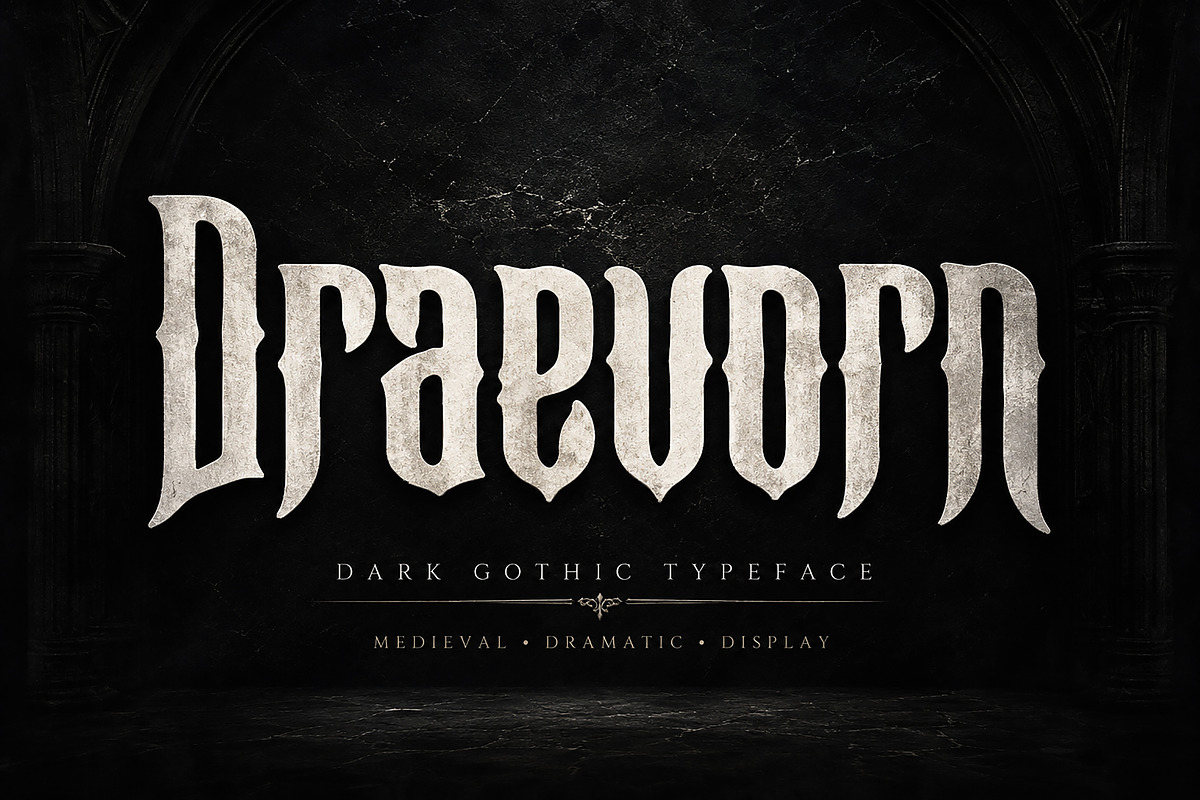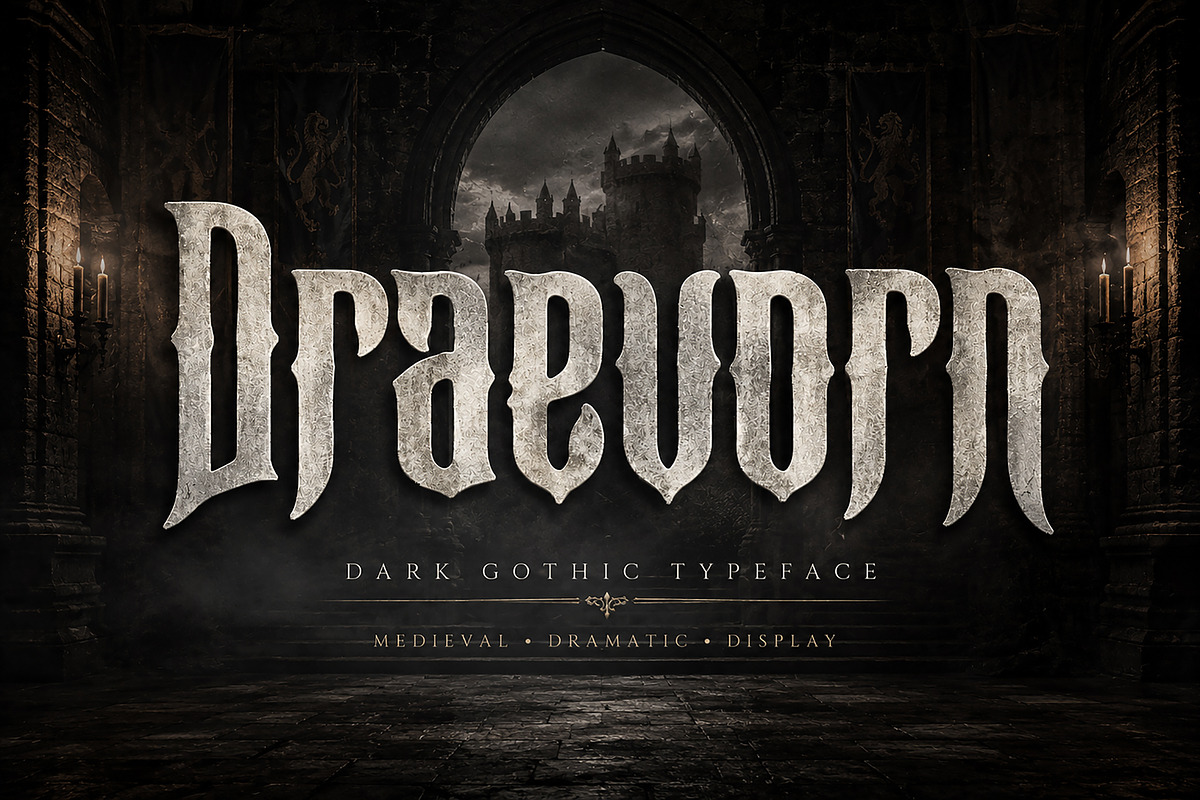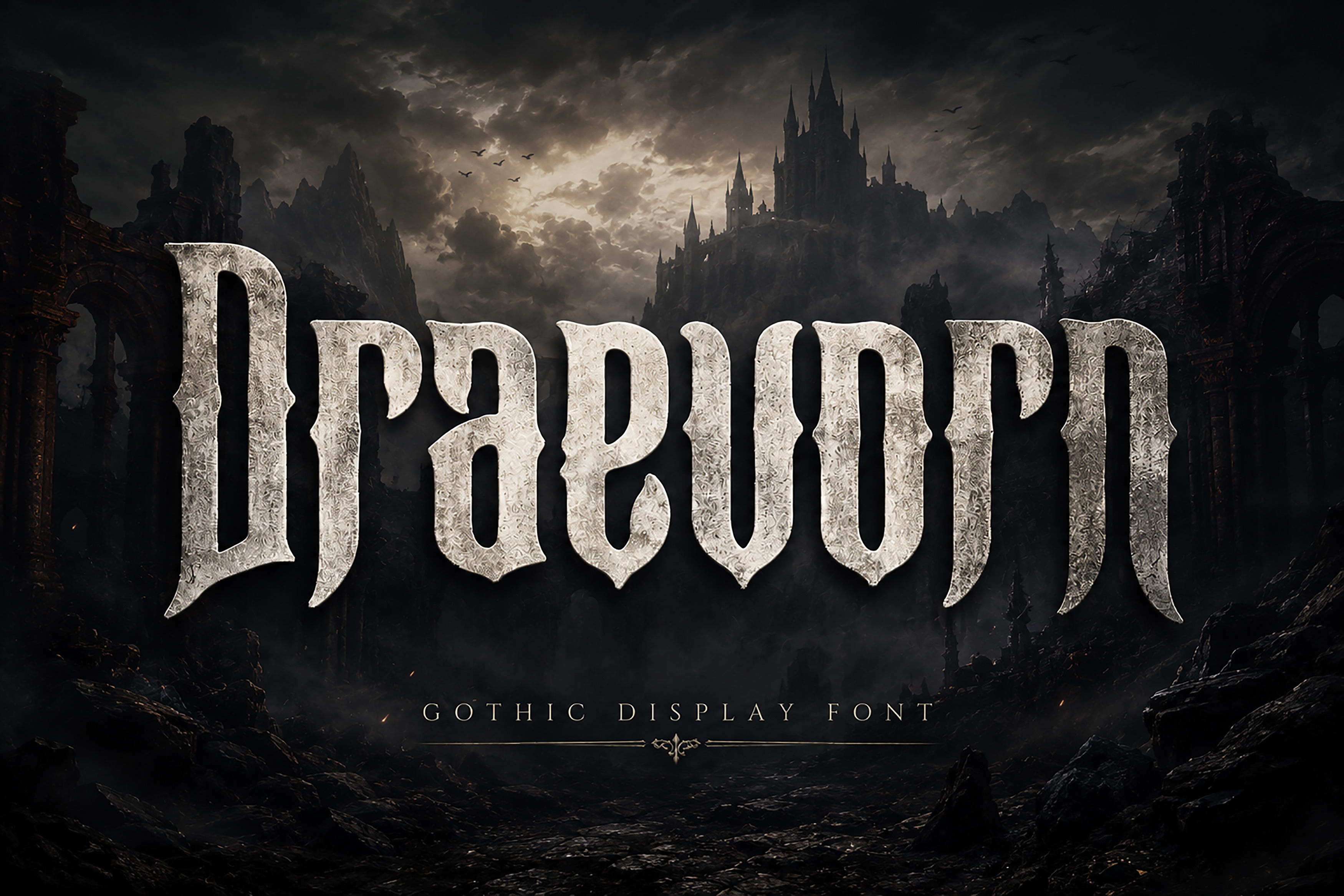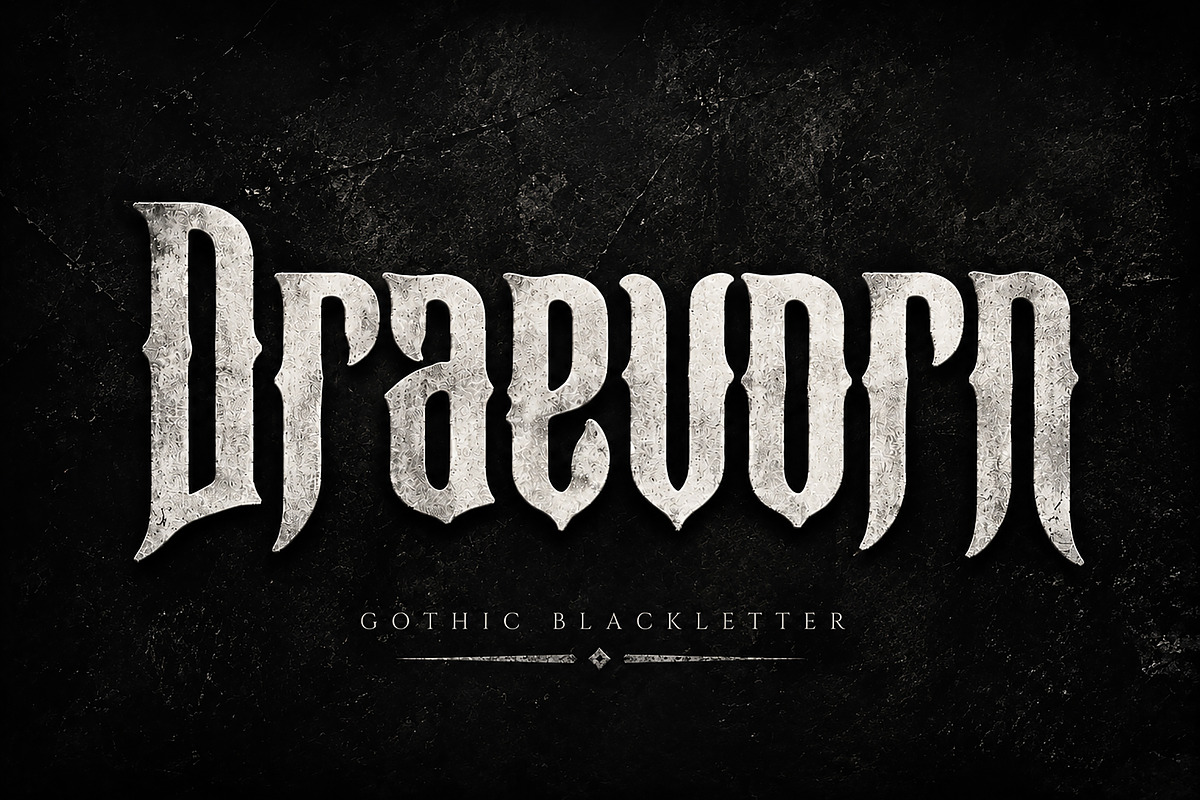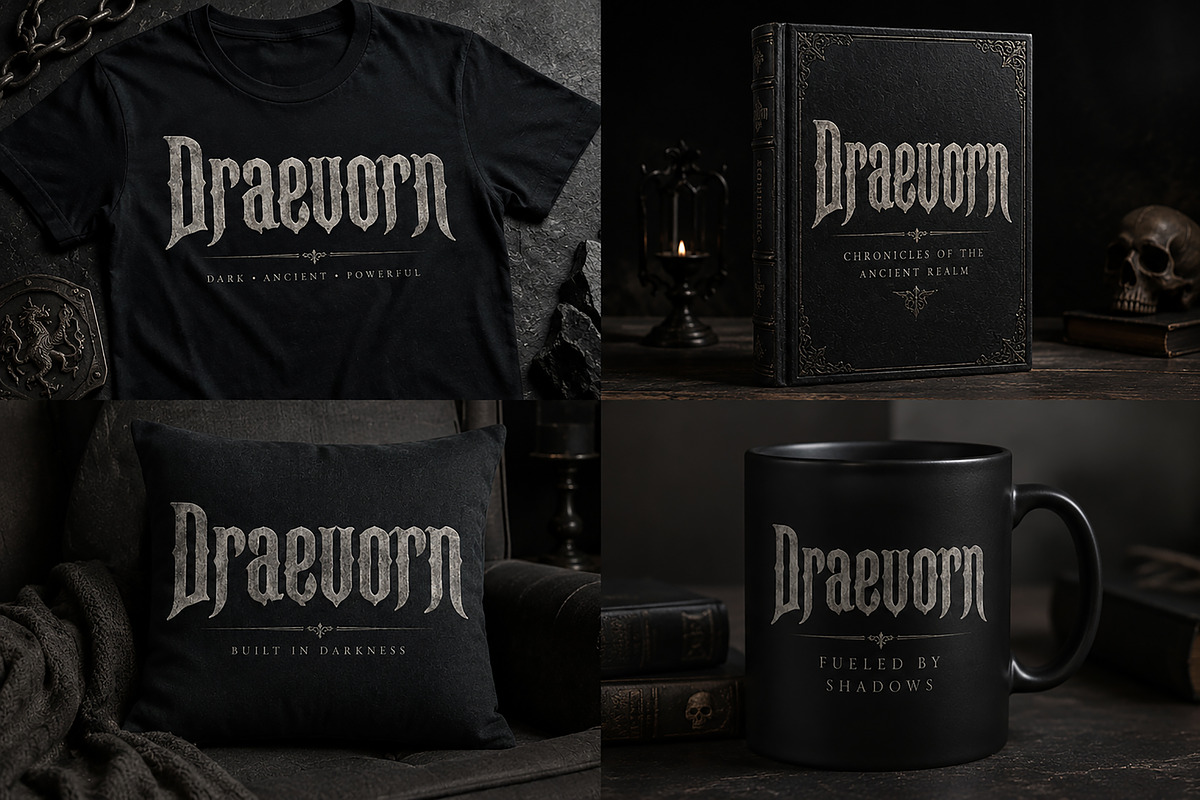
Draevorn — Gothic Blackletter Font
Draevorn is a bold and dramatic Gothic Blackletter display font inspired by medieval architecture, ancient kingdoms, dark fantasy, and powerful historical aesthetics. Its sharp, distinctive letterforms and strong vertical structure give every word a commanding, mysterious, and timeless appearance.
Designed to make an immediate visual impact, Draevorn is perfect for projects that need a dark, medieval, luxurious, or powerful atmosphere. Use it for logos, branding, T-shirt designs, book covers, posters, album artwork, packaging, labels, merchandise, game titles, fantasy projects, and other display designs.
Its strong blackletter character works especially well for dark fantasy, medieval, gothic, heavy metal, rock, alternative, vintage, and historical-inspired designs.
Bold Gothic Blackletter style
Dramatic medieval-inspired appearance
Strong and distinctive display letterforms
Perfect for headlines, titles, and branding
Suitable for both digital and print projects
Great for merchandise and apparel designs
Ideal for dark fantasy and medieval aesthetics